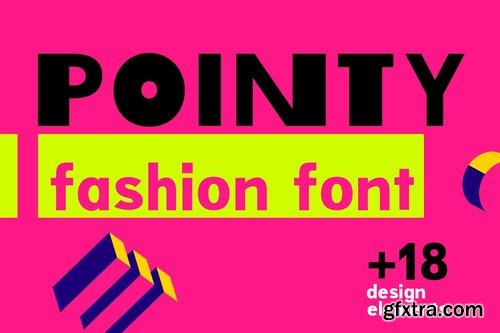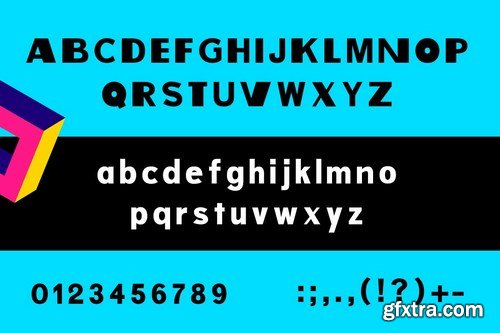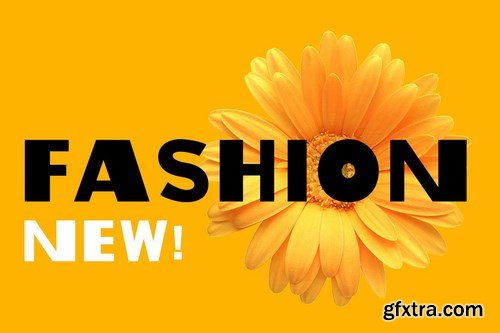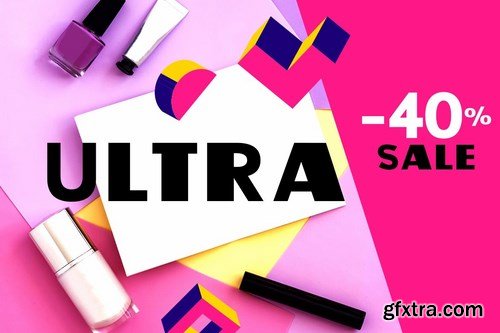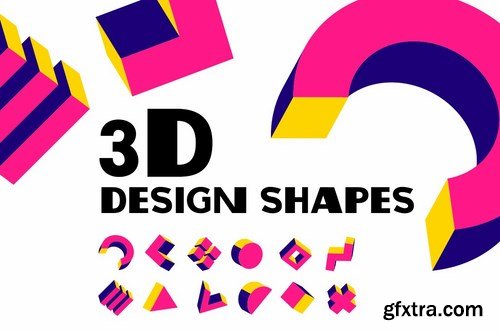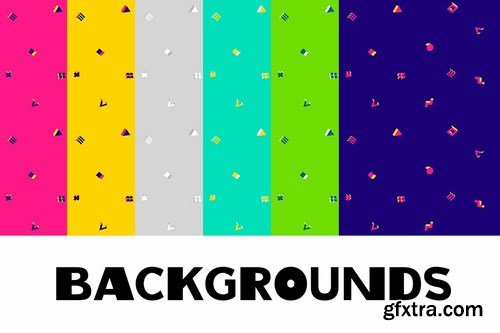
Pointy is a fashion sans serif font designed with different thickness letters. The font is elegant and at the same time bright and conspicuous. Bold and joyful font, it works great to make short titles.